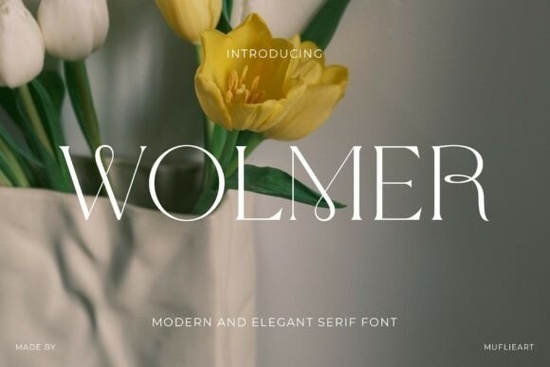
If you're looking for a serif font that blends modern elegance with subtle drama, Wolmer Font offers a refined solution. Designed with fashion-forward projects in mind, Wolmer brings together sharp contrast, graceful curves, and just enough personality to stand out without overwhelming your layout. It’s especially well-suited for designers working on luxury branding, wedding invitations, or premium product packaging where typography needs to whisper sophistication rather than shout for attention.
What makes Wolmer different from other modern serifs?
Many contemporary serif fonts lean either too rigid or overly decorative. Wolmer finds a middle ground. Its letterforms feature teardrop-shaped terminals and gently interlocking crossbars that soften traditionally straight lines into something more fluid. This gives headlines and logos a sense of movement even when static. The generous spacing (optical tracking) ensures characters don’t crowd each other, which is especially helpful when layering text over soft-focus photography or minimalist backgrounds.
Compared to fonts like Raffined, which leans into classic editorial styling, or Gibs, known for its compact structure and vintage flair, Wolmer stands out with its runway-ready posture and high-contrast strokes. If you’re drawn to the clean geometry of modern design but still want warmth and character, this typeface delivers both.
Where does Wolmer work best?
Because of its balance between structure and flow, Wolmer shines in visual contexts that value restraint and detail:
- Luxury branding – Think perfume bottles, skincare labels, or boutique hotel logos.
- Wedding stationery – From save-the-dates to place cards, it adds polish without feeling stiff.
- Fashion editorials – Magazine spreads, lookbooks, or social media graphics benefit from its editorial clarity.
- Photography overlays – Its crisp edges hold up well against soft, warm-lit portraits or floral backdrops.
It’s less ideal for body text or small sizes due to its fine details and high stroke contrast. Stick to display use headlines, logotypes, or short phrases where every curve can be appreciated.
How does it pair with other fonts?
Wolmer pairs beautifully with neutral sans-serifs that don’t compete for attention. Try combining it with a simple geometric sans like Montserrat or a warm humanist typeface such as Lora for contrast. Avoid pairing it with another ornate serif too much detail can muddy your message.
Who should consider using Wolmer?
This font is particularly useful for:
- Small business owners launching a premium product line who need distinctive yet tasteful typography.
- Print-on-demand sellers creating mockups for luxury-themed merchandise like candles, journals, or apparel.
- Graphic designers working on client projects that demand upscale aesthetics without veering into cliché.
- Crafters and hobbyists designing personal wedding suites or custom gift tags with a designer touch.